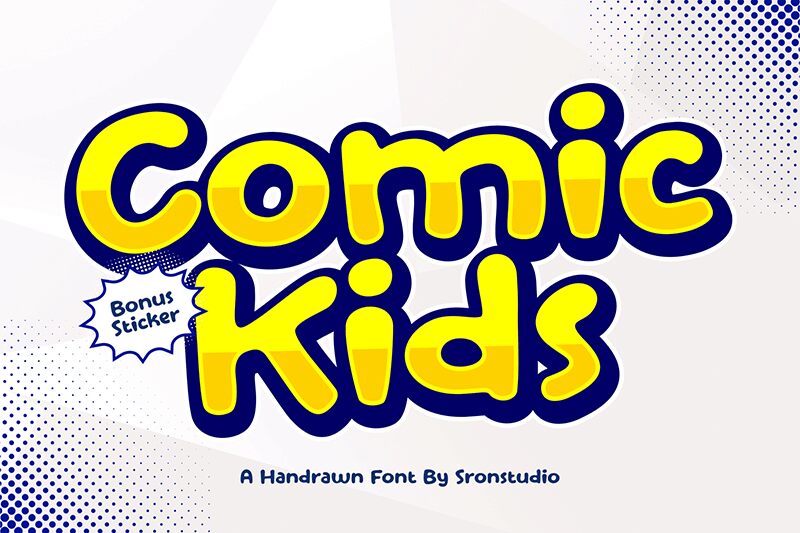
Comic Kids
Comic Kids font by Sronstudio is a display typeface emanating a joyful and playful comic style. Its bold yet approachable nature is accentuated with rounded edges and casual strokes that appear casual and slightly worn out. The font emulates an energetic essence hidden inside each of its characters.